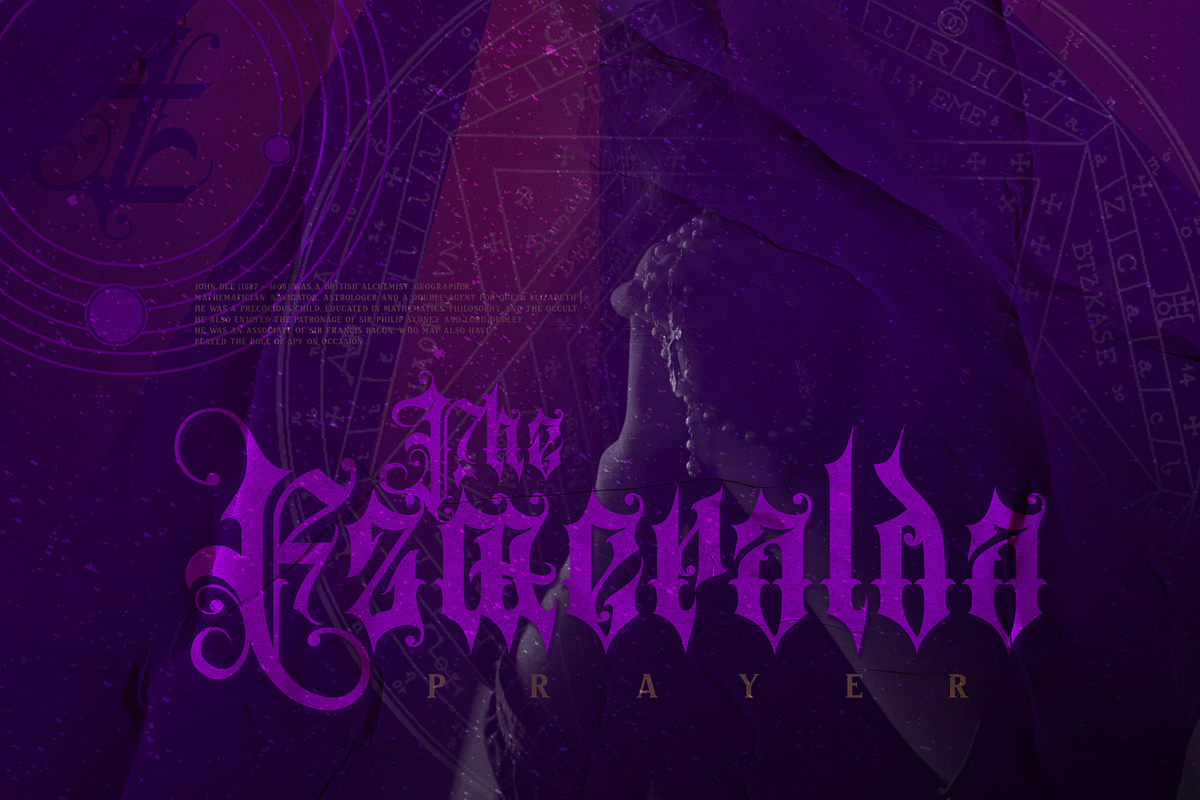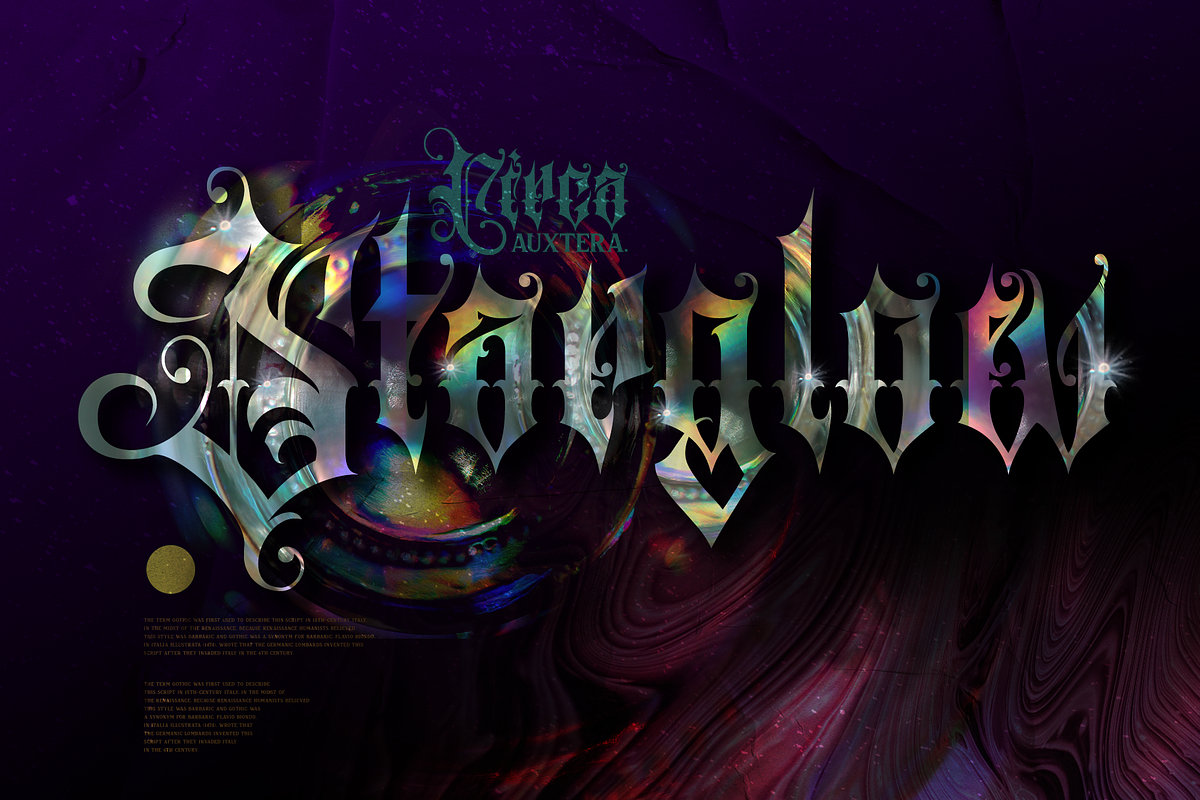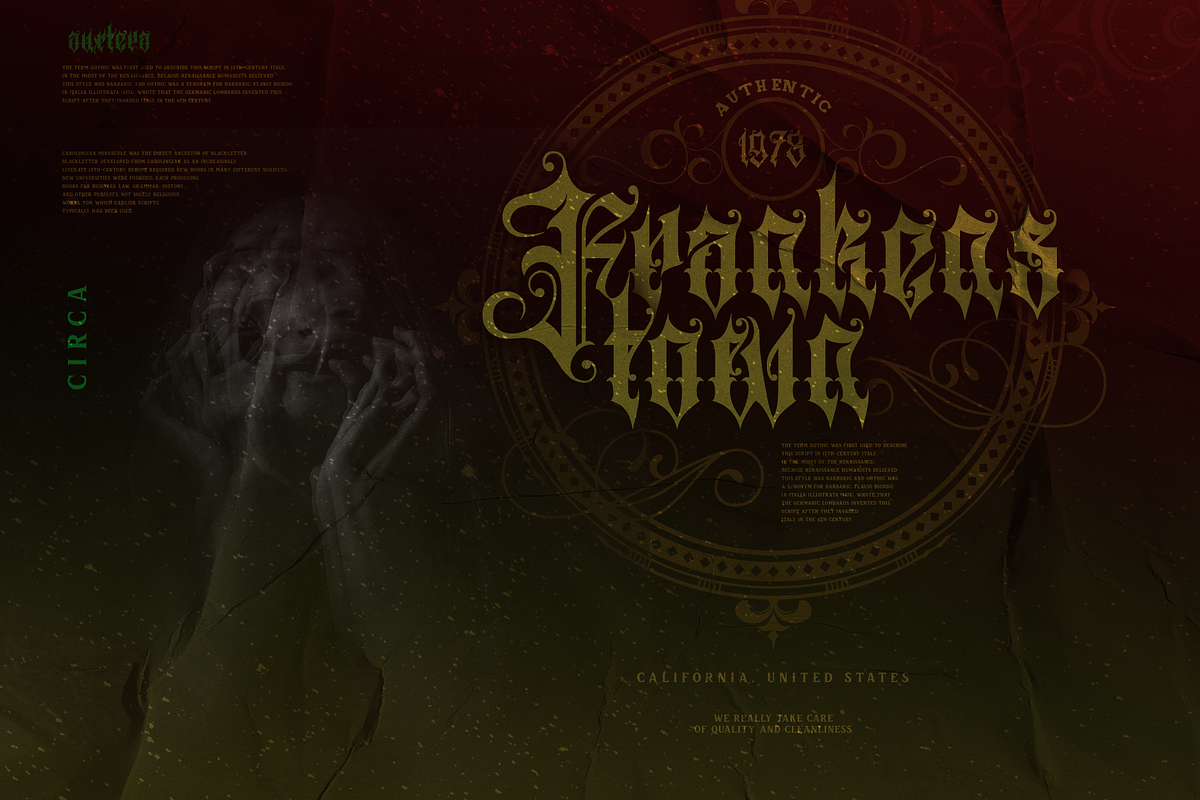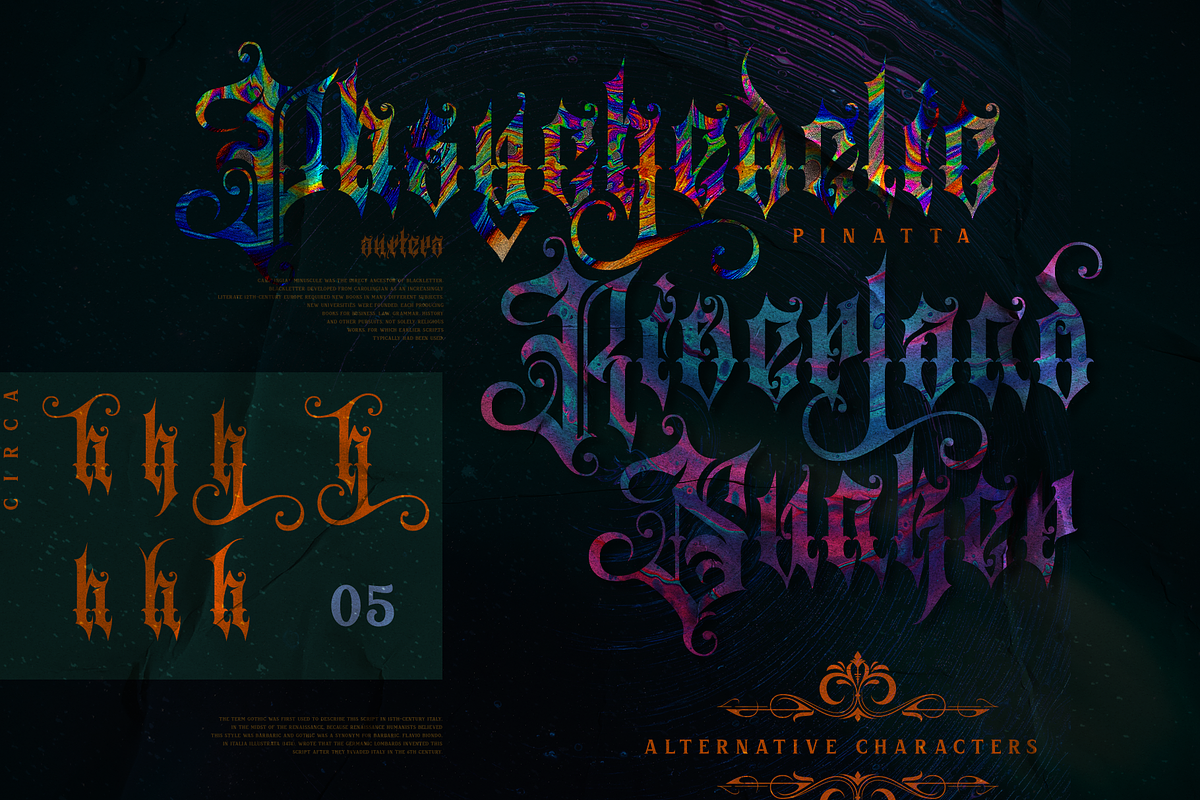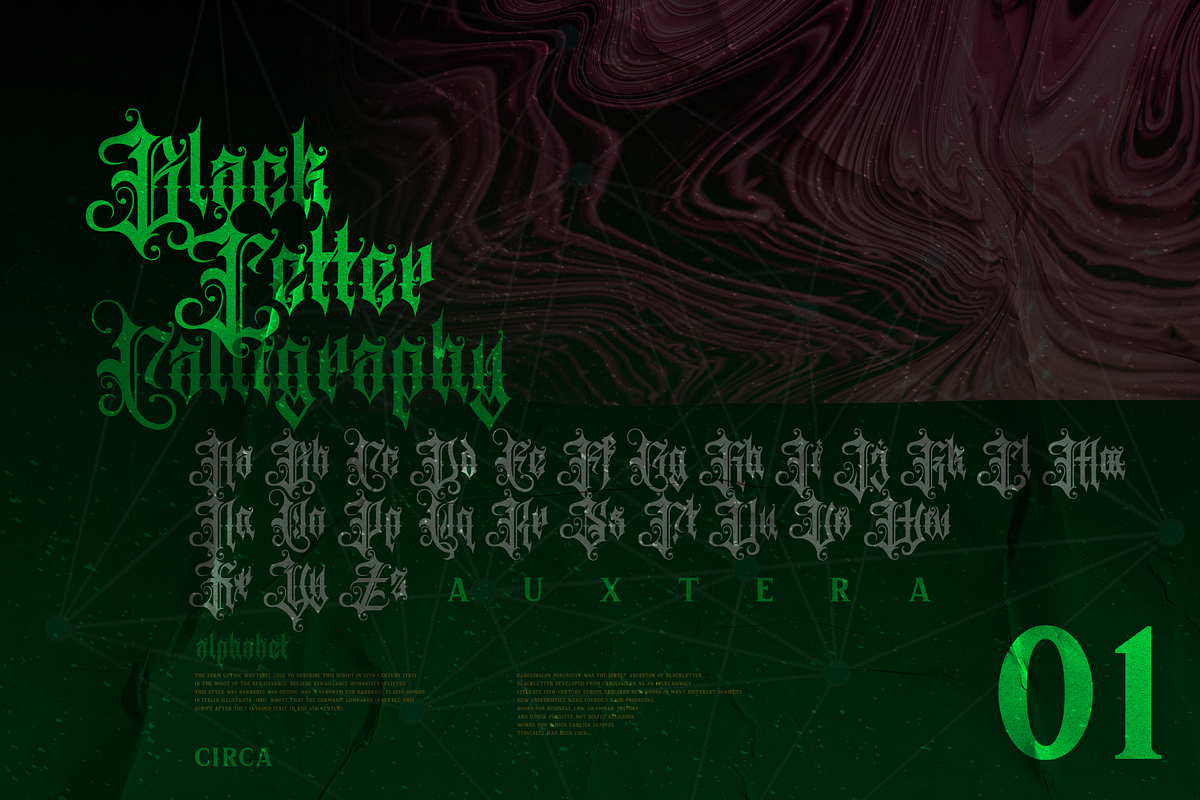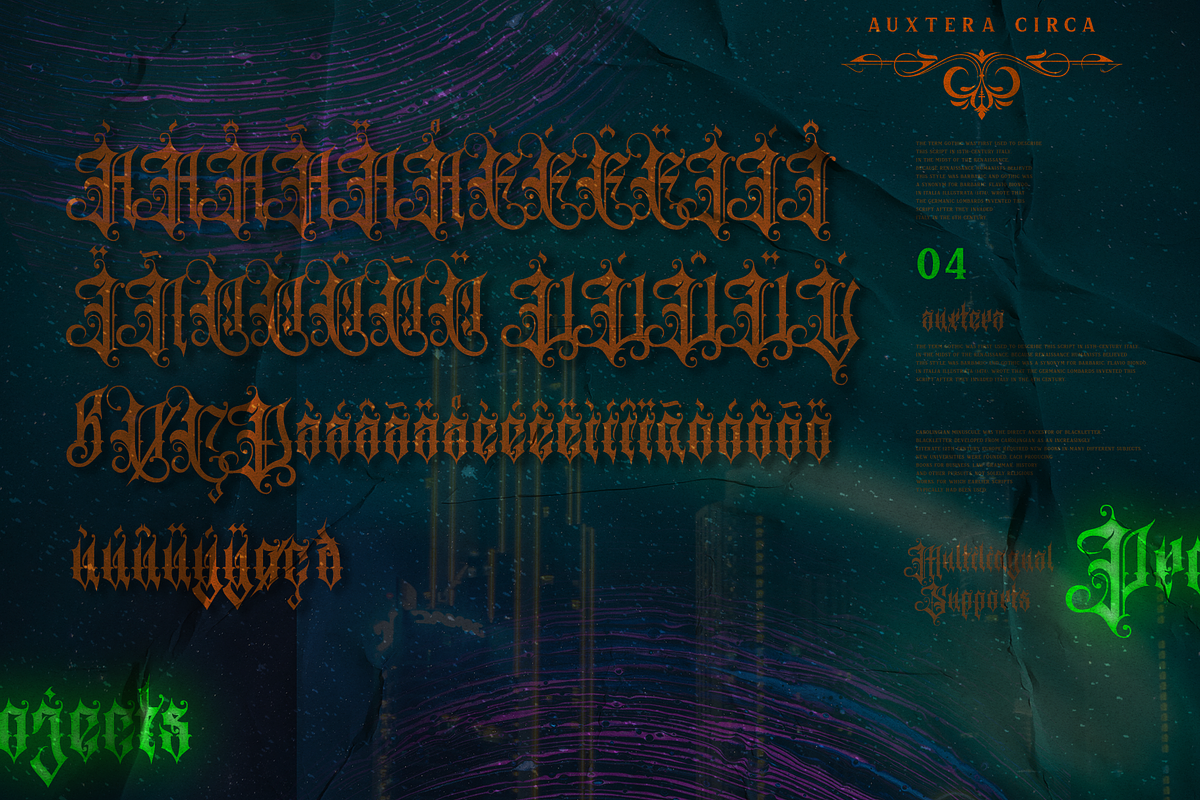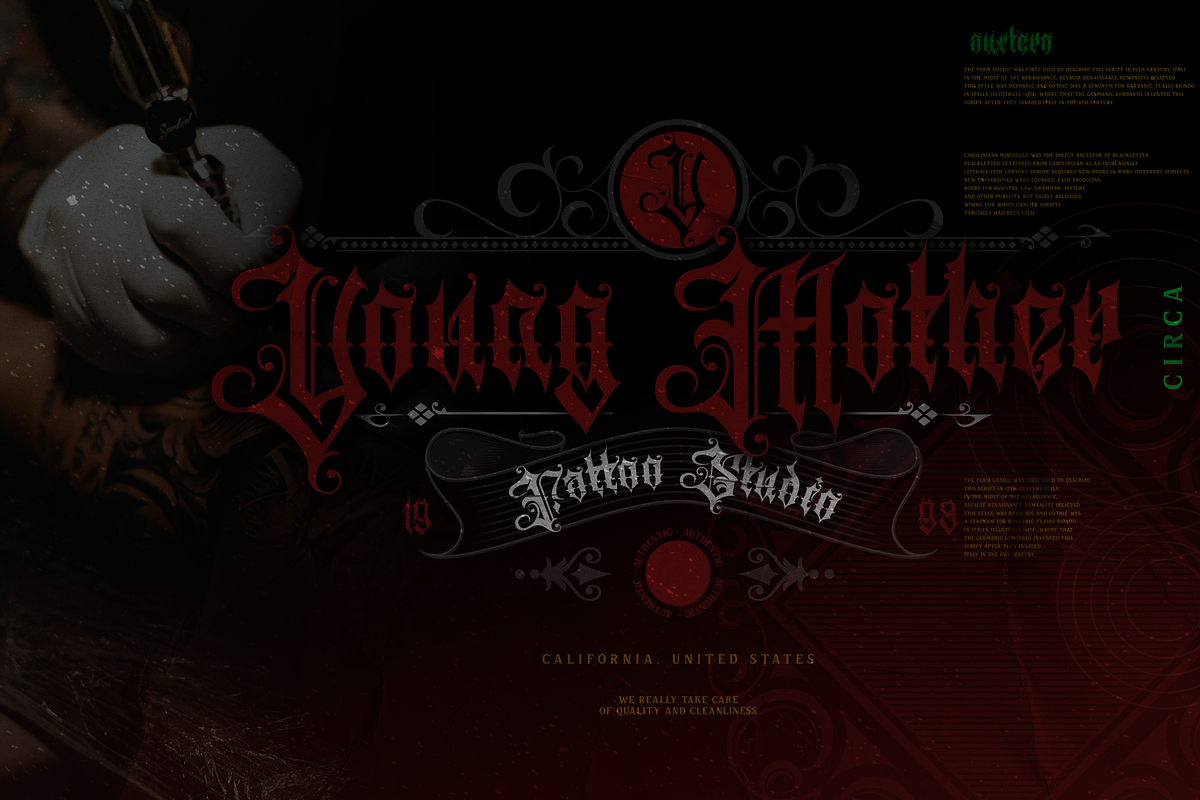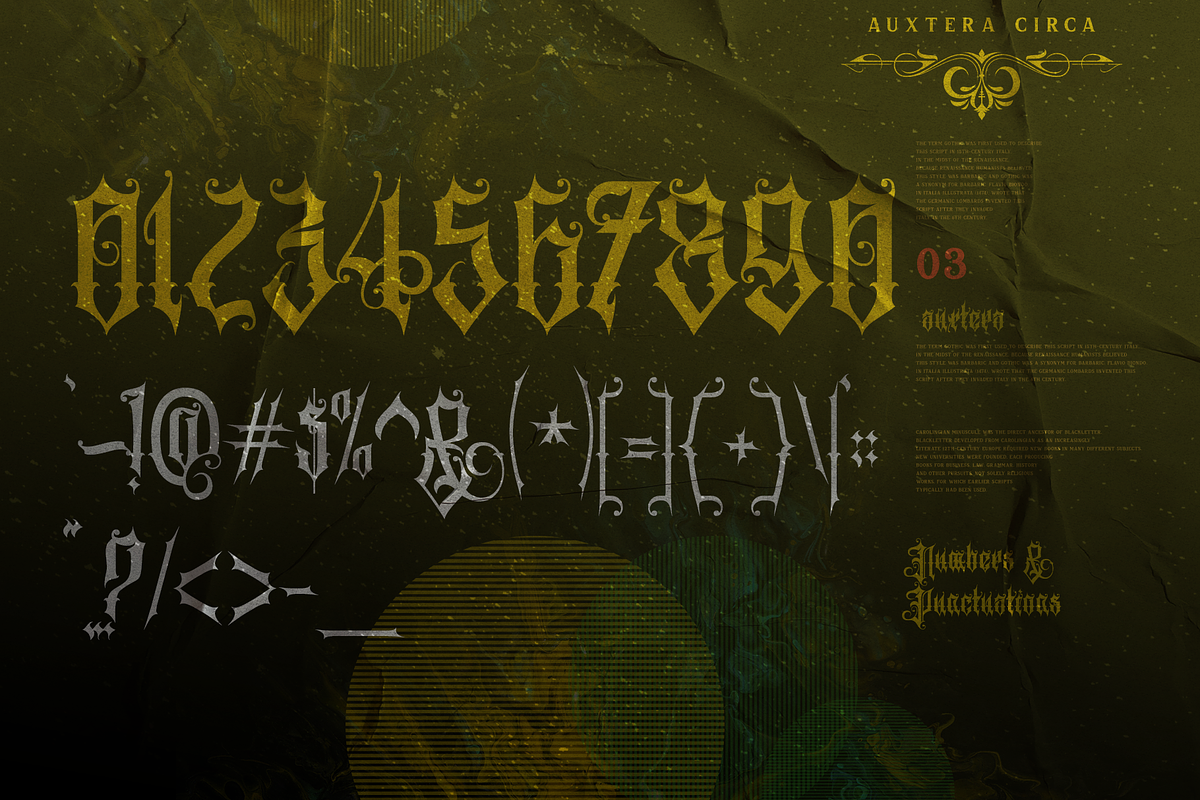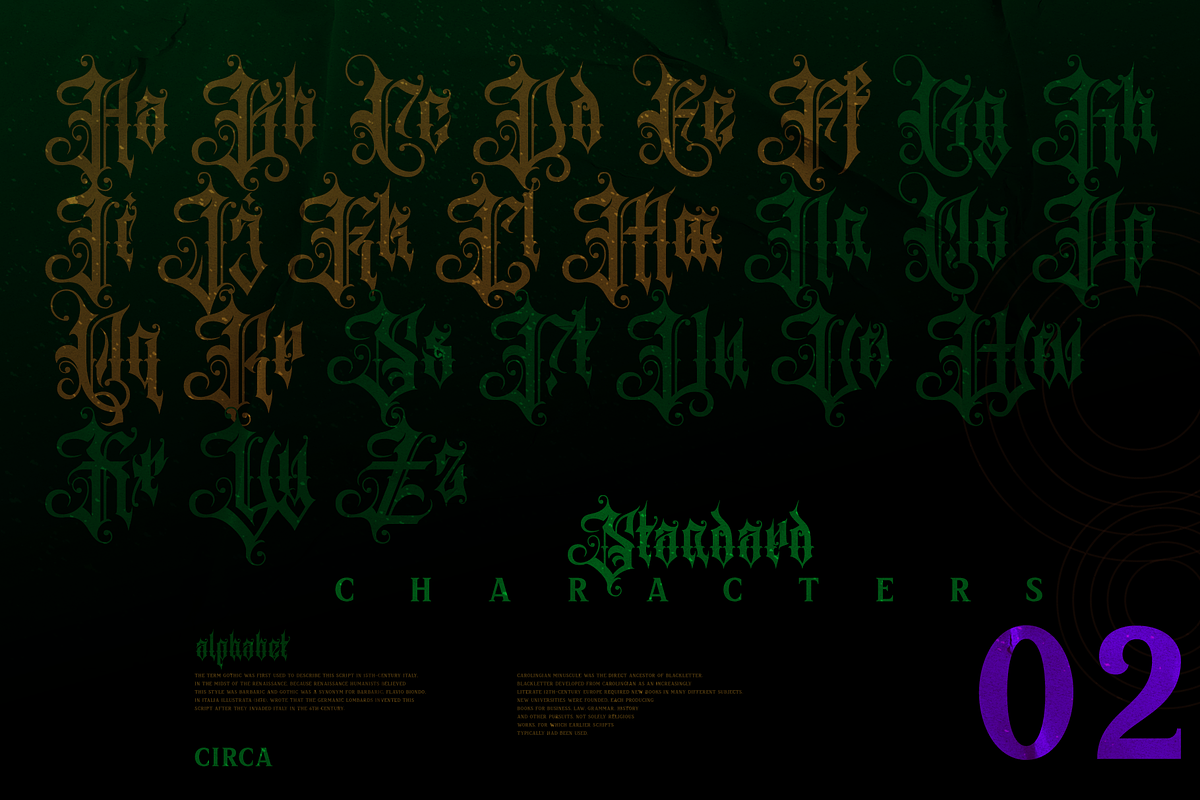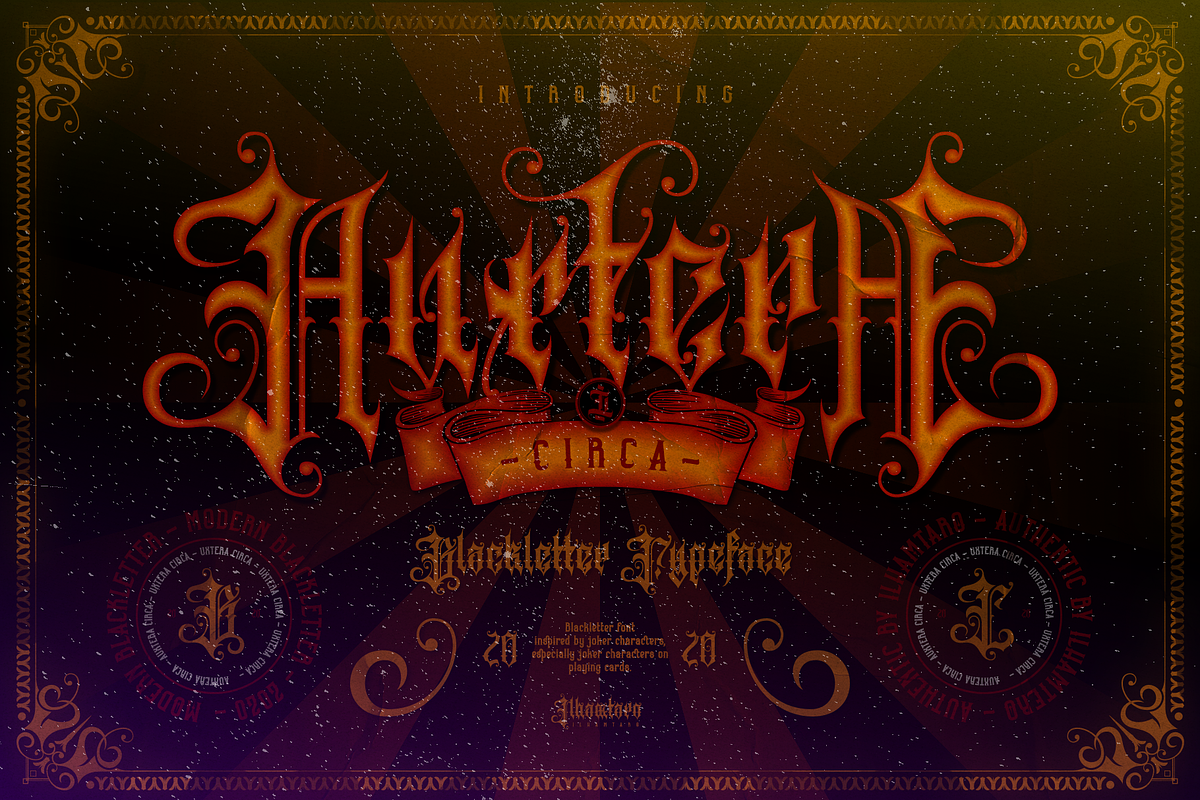
Auxtera Circa
AUXTERA CIRCA is the Auxtera font family that will be released after this font, this font is inspired by the classic Blackletter which I combined with the classic Joker character, namely the classic Joker hat and shoes depicted with a round tip or on the hat with a ball-like tip, which I applied into this font's typeface.
This font will be very suitable if you like tattoo designs, you can create it by combining it with ornaments, yes this is not a paragraph font, unless you don't care about readability, because in fact this font is art and as a display font or it can be a unique collection of fonts. because this is not mainstream. You can also use this font for liquor label designs, metal band covers etc.